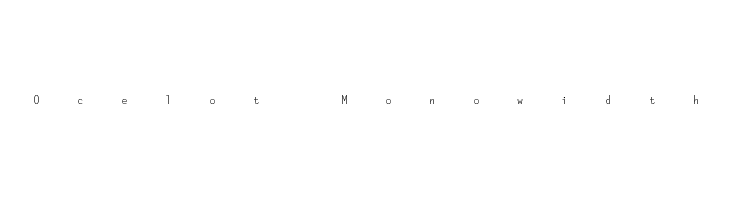
A geometric, puzzle-like decorative font with interconnected block designs.
A bold, flowing script font with elegant curves and a cohesive style.
A bold, decorative font with a 3D effect and geometric forms.
A modern, geometric font with rounded edges and thin strokes.
A playful, handwritten font with bold, rounded uppercase and cursive-like lowercase letters.
A classic blackletter font with ornate and intricate letterforms.
Pictogram font featuring African tribal motifs and animals.
A playful, handwritten font with whimsical embellishments and consistent stroke width.
A dynamic and flowing script font with elegant curves and a handwritten appeal.
A bold, italic, textured font with an expanded width and dynamic style.
A bold, geometric font with a strong industrial feel.
A bold, geometric, and condensed font with a modern industrial feel.
A clean, modern sans-serif font with uniform strokes and a slightly condensed style.
A whimsical, handwritten font with flowing, cursive forms and a playful appearance.
Hand-drawn, sketchy marker-style decorative font.
A runic-inspired font with angular, geometric characters.
A bold, outlined font with a collegiate, varsity style.
A lively and elegant script font with smooth, flowing strokes.
A playful, handwritten font with quirky, organic shapes and dynamic strokes.
A bold, italic font with a dynamic and futuristic style.
A bold, angular font with a dramatic and mystical style.
A bold, cursive font with a dynamic, handwritten style.
A bold, geometric font with angular shapes and a modern, artistic style.